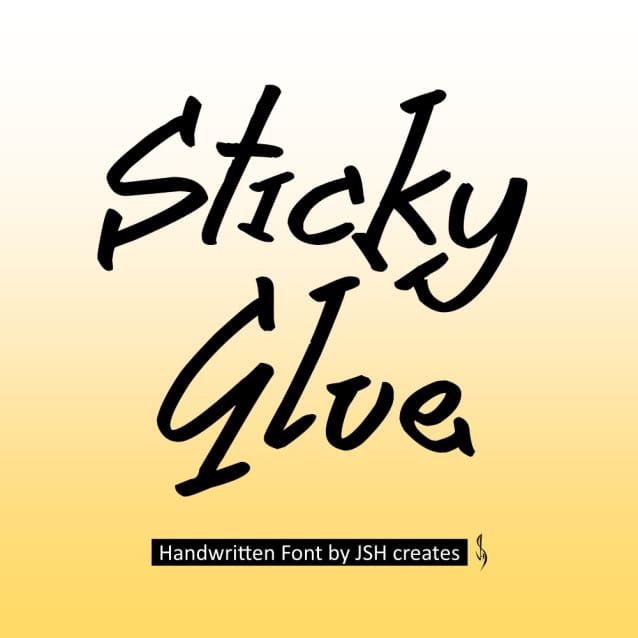
Sticky Glue Typeface
Sticky Glue Typeface, Cool handwritten font. Perfect for advertising and display purposes, including banners, book covers, shirts, posters, logos and much more!